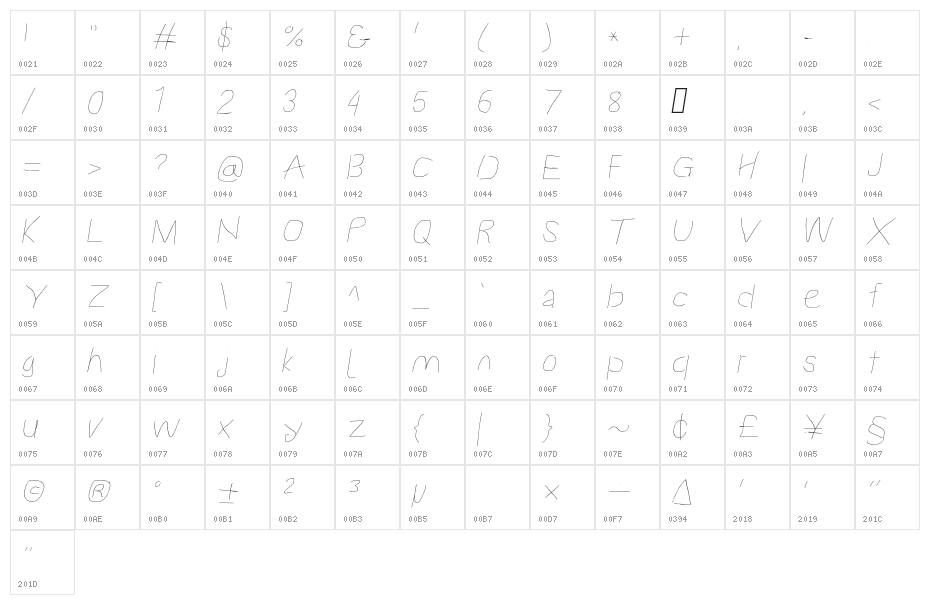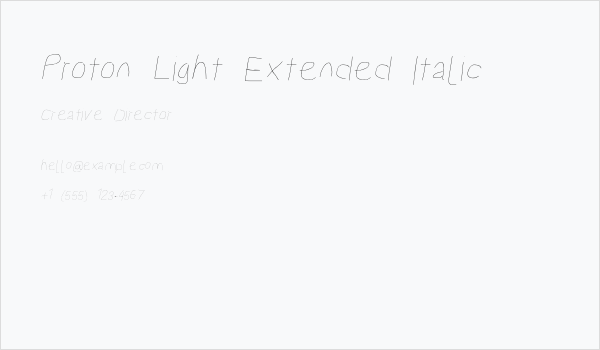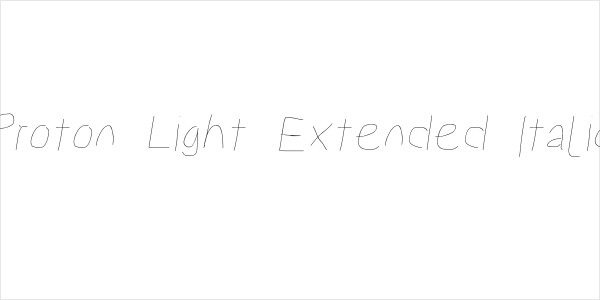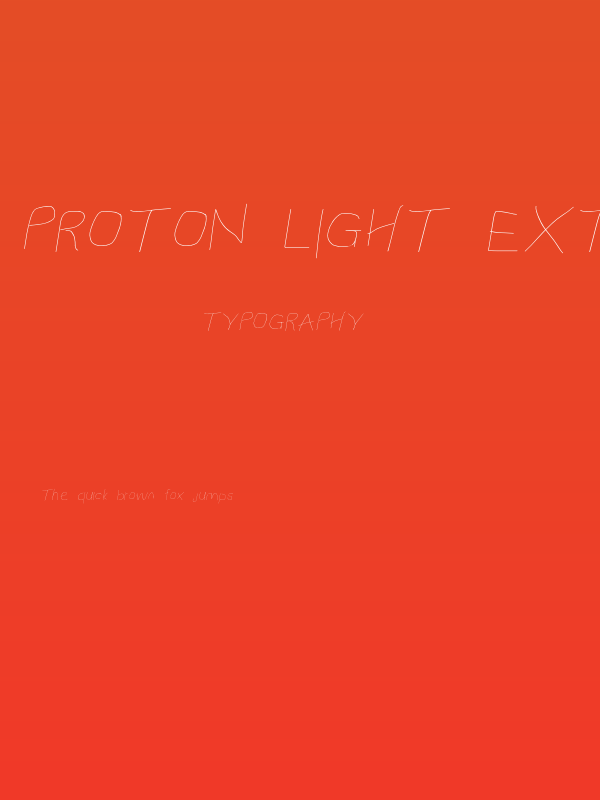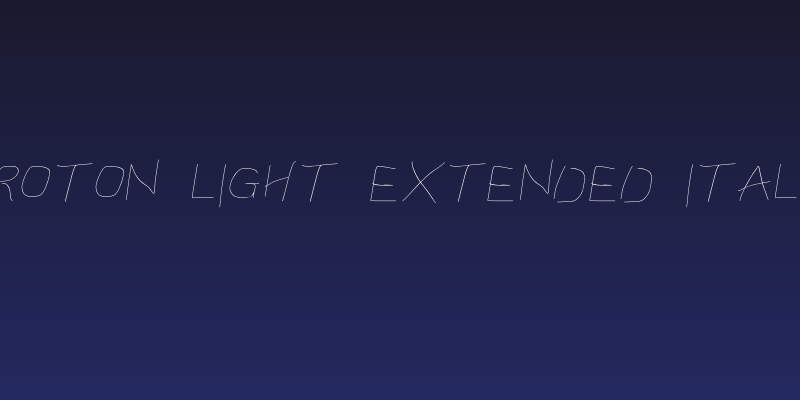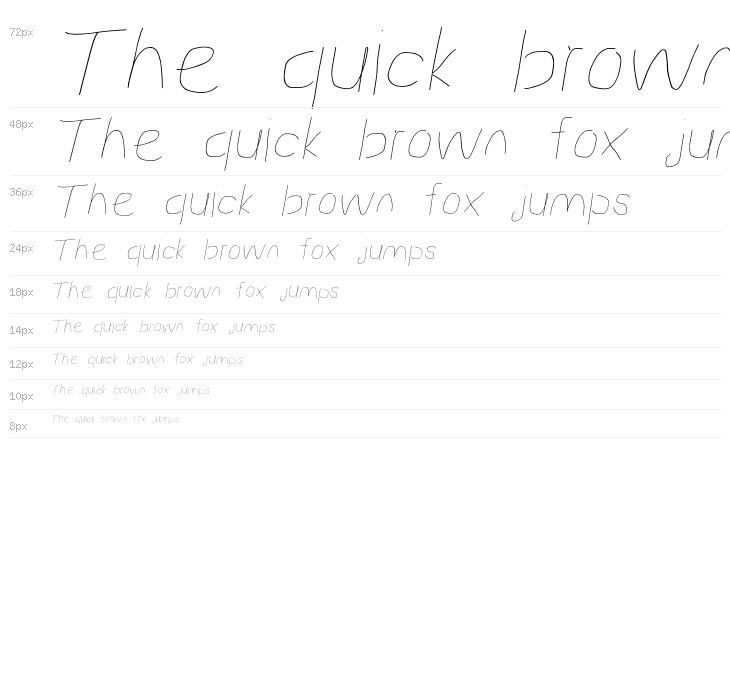
Proton Light Extended Italic Font
Proton Light Extended Italic Description
This font features a light and airy design with an extended width and a subtle italic slant. The characters are elegantly crafted with a modern touch, showcasing a clean and minimalistic aesthetic. The strokes are thin and consistent, providing a delicate appearance that is both sophisticated and approachable. The spacing between characters is wide, enhancing readability and giving the text a spacious feel. This font is ideal for projects that require a contemporary and stylish look, offering versatility in various design contexts.